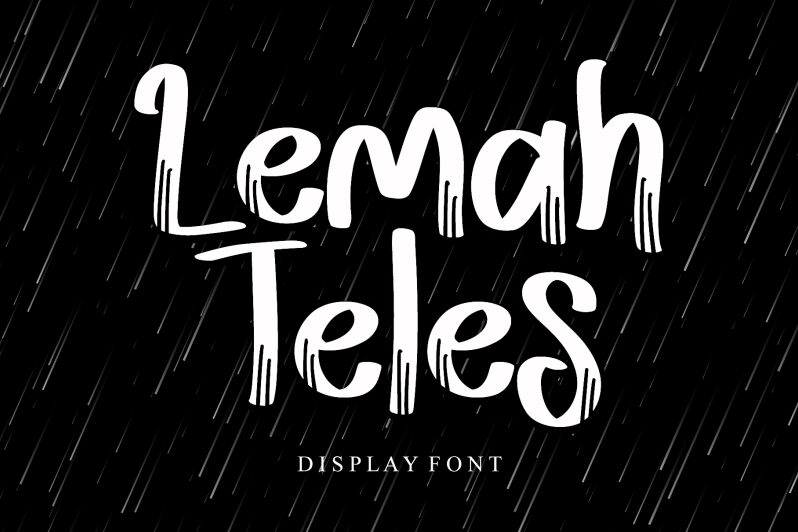
Lemah Teles font by Letterafa Studio exudes an energetic, hand-drawn aesthetic with a brush-like texture that captures an urban vibe. This font is expressive and dynamic, with influences from street art making it both colorful and informal. Its unique design is eye-catching and bold, making it ideal for creating engaging visual content that stands out.
Its versatile character lends itself perfectly to various uses such as posters, logos, banners, apparel design, album covers, murals, graffiti-inspired projects, websites, social media graphics, or editorial layouts. The font is perfect for any creative project seeking a lively, spirited touch.